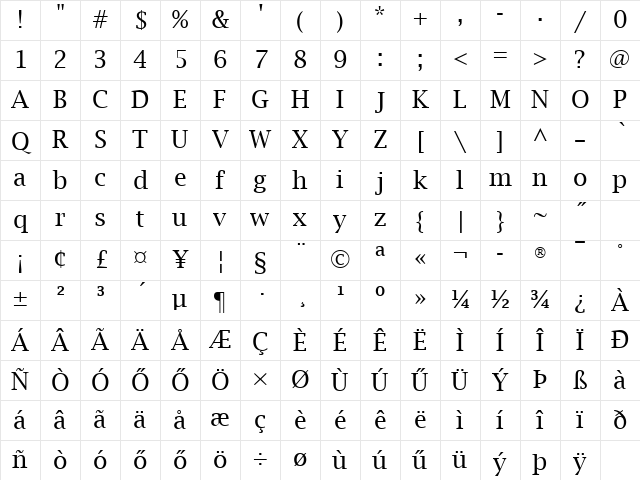
H_Lucida Bright Regular
H_Lucida Bright Family
Design Context for H_Lucida Bright
H_Lucida Bright is a composed and adaptable typeface that performs quietly and consistently across a wide range of design contexts.
Pro Tip: Use H_Lucida Bright in both headline and body roles to test its range before committing to a single application.